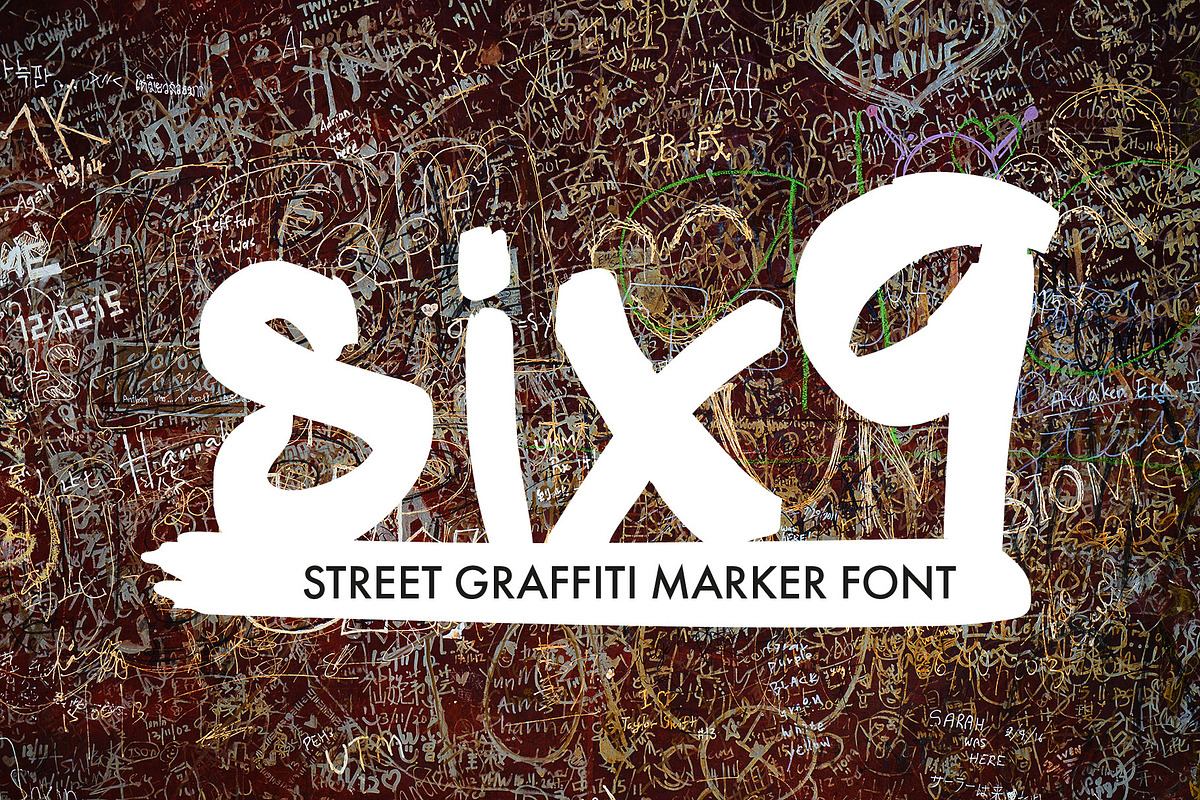
Six9 Graffiti Urban Tag Marker Font Free Download
The Six9 Graffiti Urban Tag Marker Font Free Download is a bold and edgy typeface inspired by street art and urban culture. With its dynamic, marker-style strokes and graffiti-inspired design, this font is perfect for creating rebellious and urban-themed logos, posters, streetwear branding, and social media graphics. Whether you're designing for a skate brand, music event, or creative street art project, Six9 brings an authentic, gritty vibe to your work.
Six9 Graffiti Urban Tag Marker Font Free Download is ideal for designers who want to incorporate a raw, street-style font into their creations. Perfect for urban art, music promotions, or branding projects, this font will make your designs stand out with its powerful, edgy look. Download it today and bring an authentic graffiti vibe to your work!